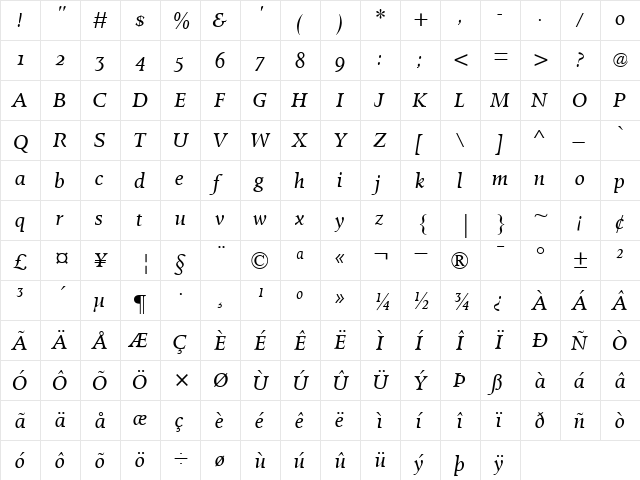
OctavianMTOldstyleFigures RomanItalic
Design Context for OctavianMTOldstyleFigures Typeface
OctavianMTOldstyleFigures carries the refined structure of traditional serif typography, with bracketed terminals and considered proportions that communicate credibility and craft. The dynamic lean of this cut emphasises speed and emphasis in any layout.